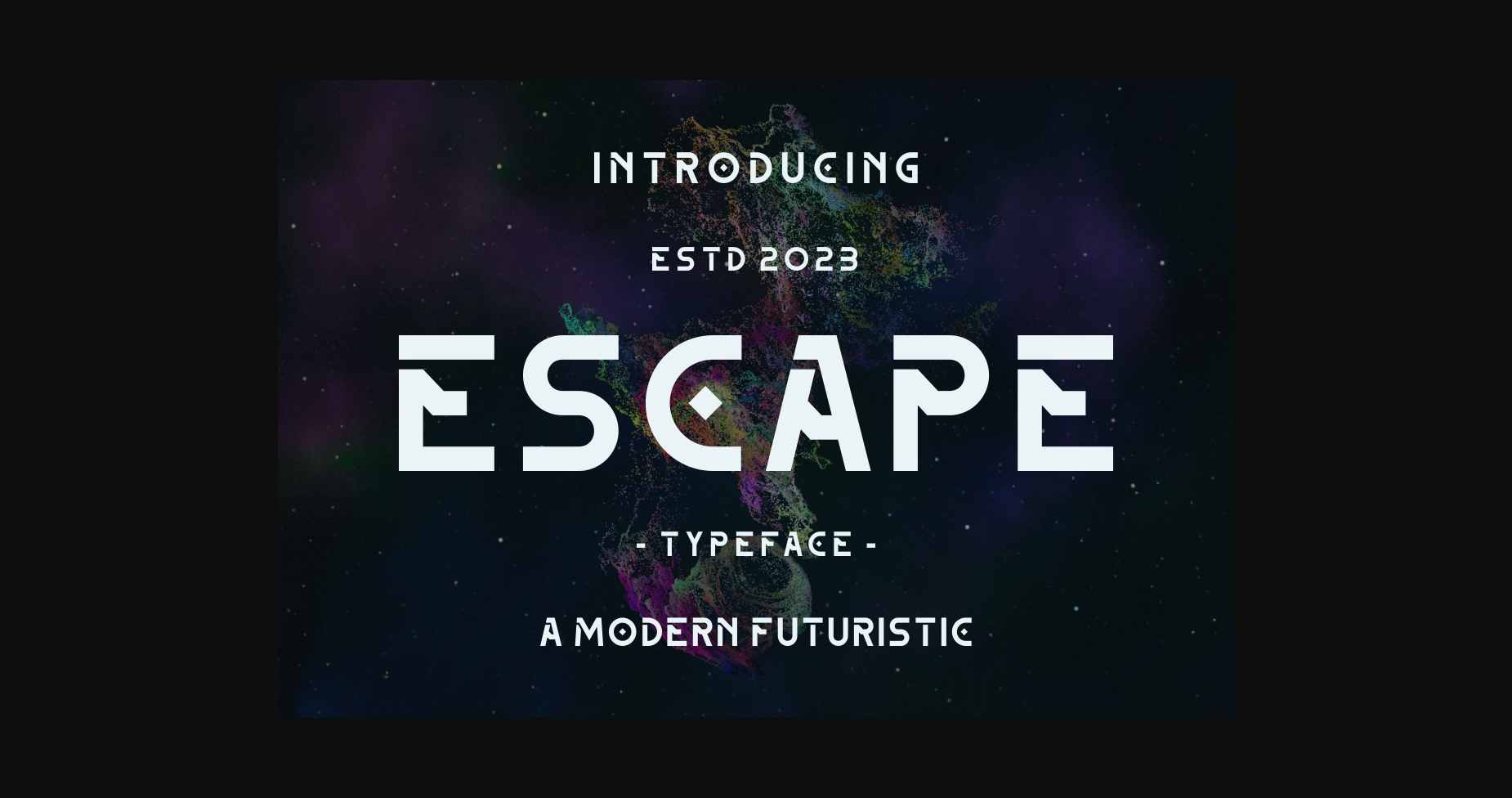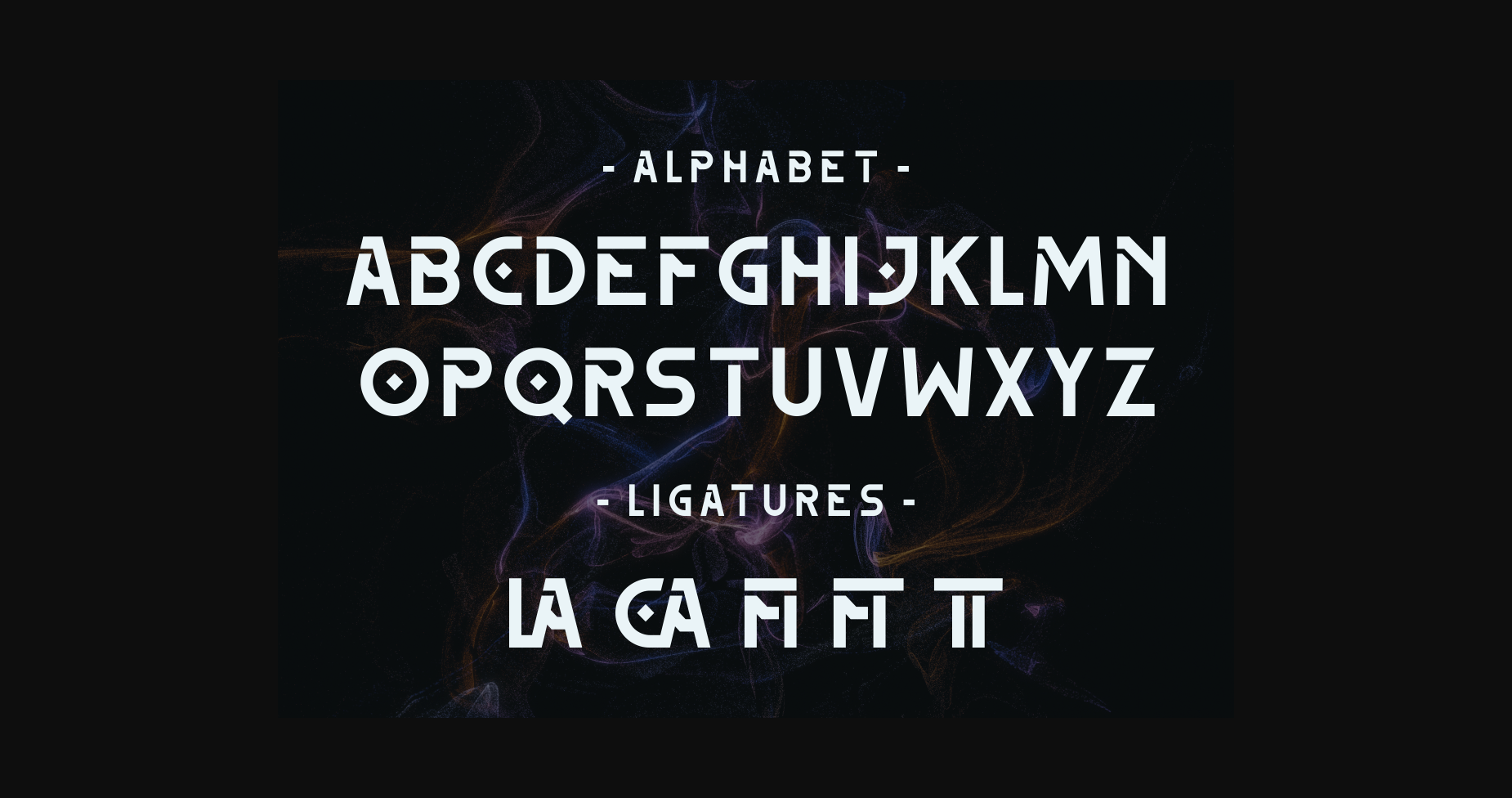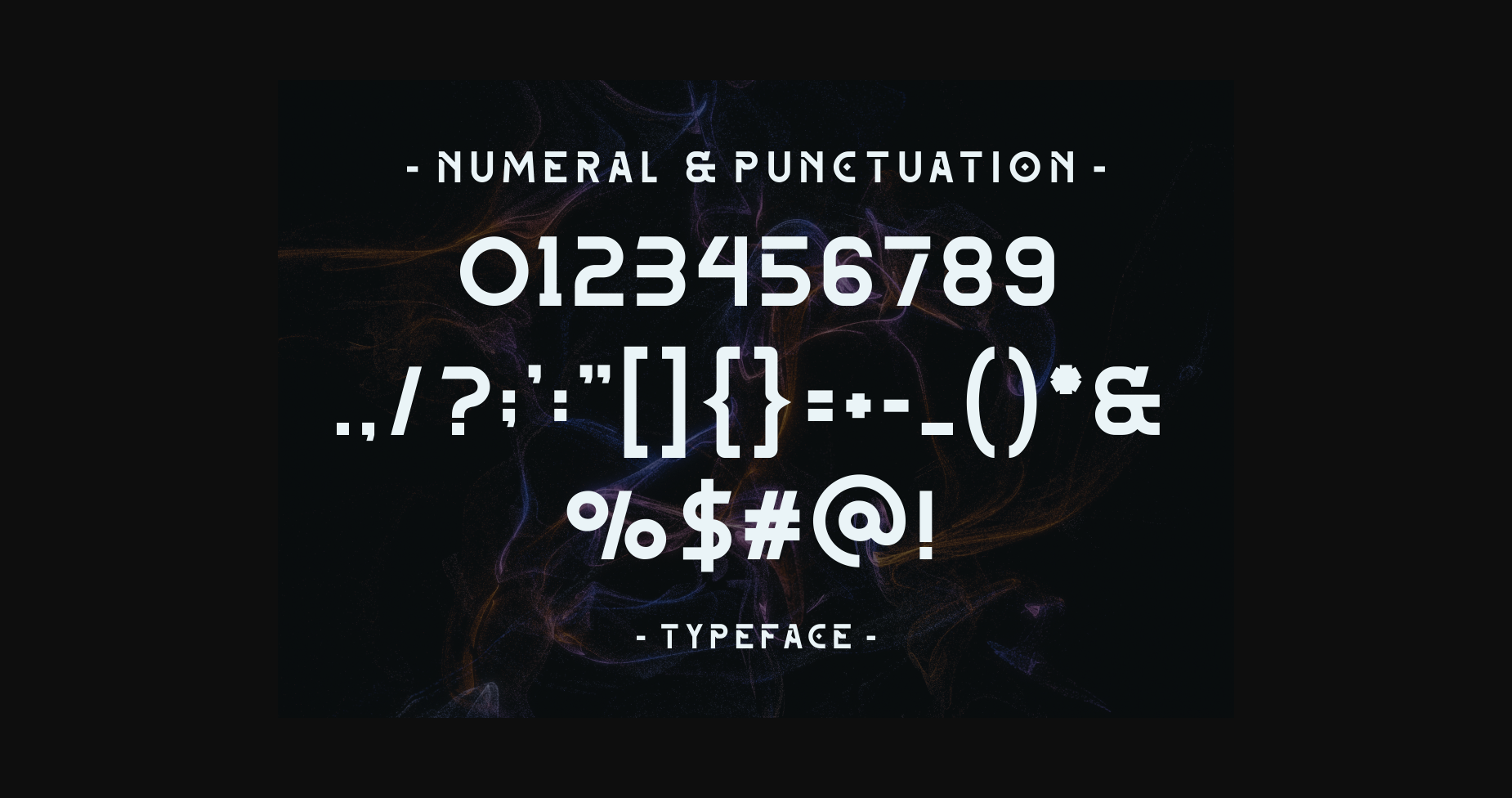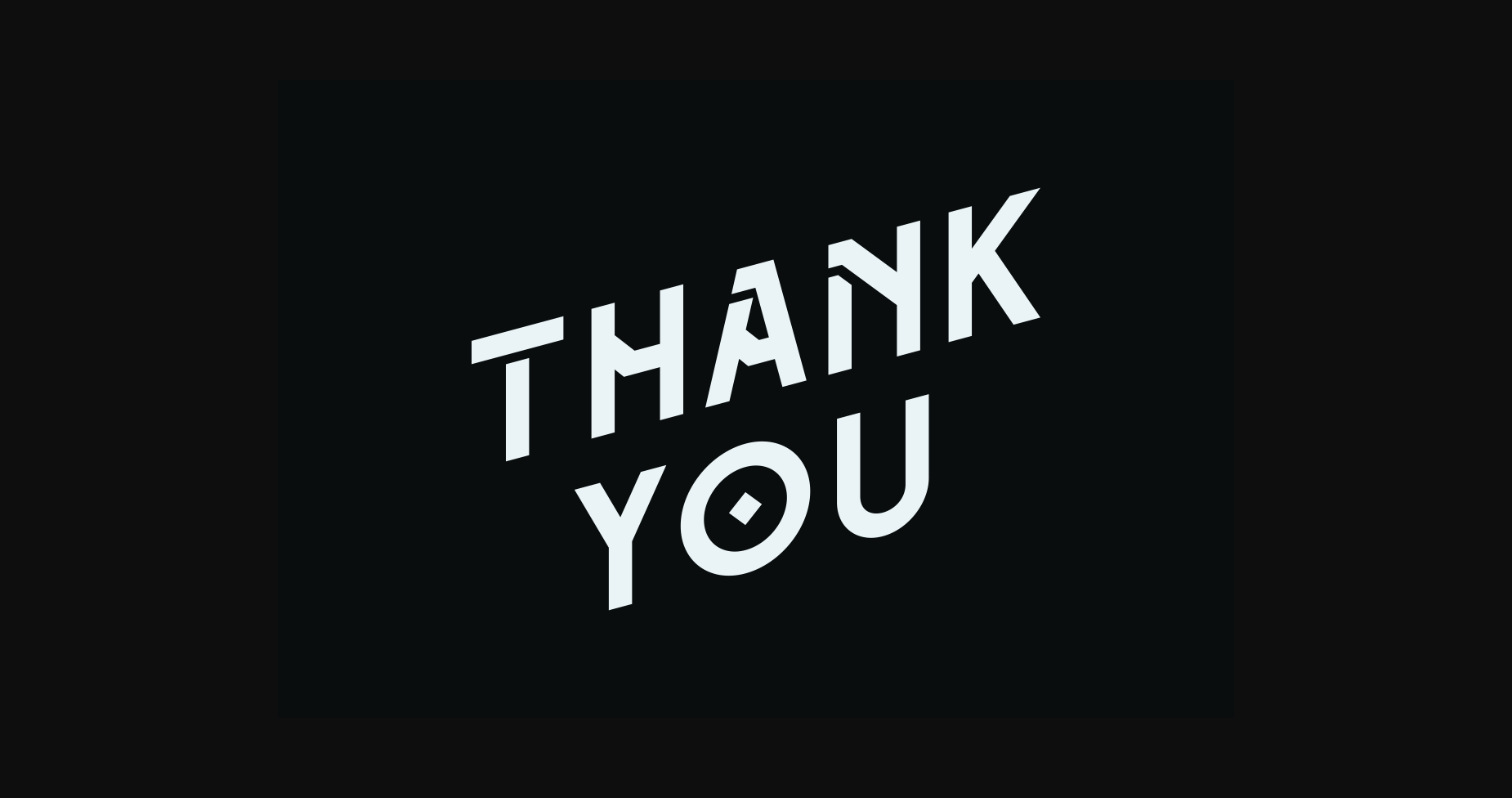
HomeSans Serif FontsEscape Font Sans Serif Fonts Escape Font FacebookXPinterestWhatsApp 1 of 6 ... Escape Font Poster 2... Escape Font Poster 3... Escape Font Poster 4... Escape Font Poster 5... Escape Font Poster 6... About Escape Font Escape is a futuristic and bold sans serif typeface. I is perfect for use on banners, book and movie titles, social media, logos, flyers,school projects and more. DOWNLOAD NOW People also explored Pommie Font Bohobot Font Bruder Font Santo Patrick Font Cintacha Font Burnstown Dam Cow Print Farm Font Christmas Blessed Font Happy Snowy Font 375 0 TagsEscapeEscape Font Previous articleBig Letters Tracing FontNext articleWerner Font LEAVE A REPLY Cancel reply Comment: Please enter your comment! Name:* Please enter your name here Email:* You have entered an incorrect email address! Please enter your email address here Website: Save my name, email, and website in this browser for the next time I comment. Personal Use Free Pumpkins Candles Personal Use Free Read more about this font Avatarock Personal Use Free Read more about this font Jurnal Personal Use Free Read more about this font Calega Personal Use Free Read more about this font BLOG Using Fonts in Digital Marketing: Tips to Strengthen Your Brand Identity In the realm of digital marketing, every visual element plays a crucial role in shaping a brand's identity, and fonts are no exception. The... Best Fonts for T-Shirt Design – Top 2025 Picks Transform Your Website: Elevate Your Typography with 7 Best Web Font Generators Top 7 Google Fonts Alternatives for Faster and Privacy-Friendly Web Design (2025)